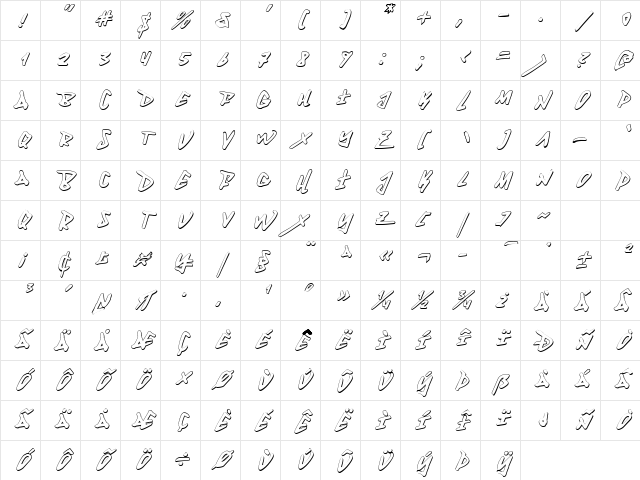
Fantom 3D Italic is a composed and adaptable typeface that performs quietly and consistently across a wide range of design contexts. The slanted form adds forward momentum and visual energy.